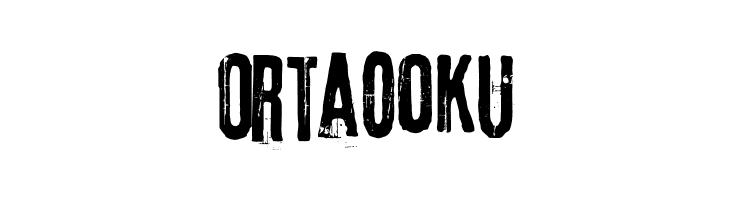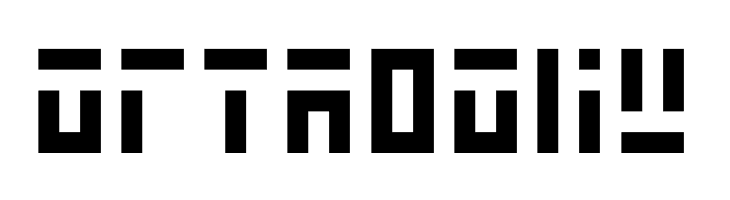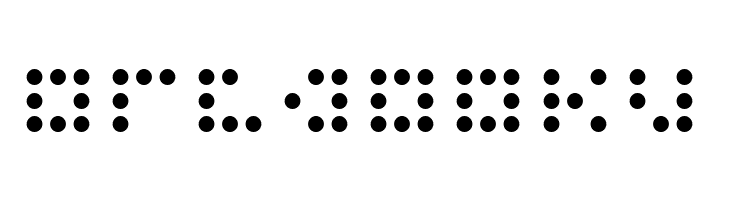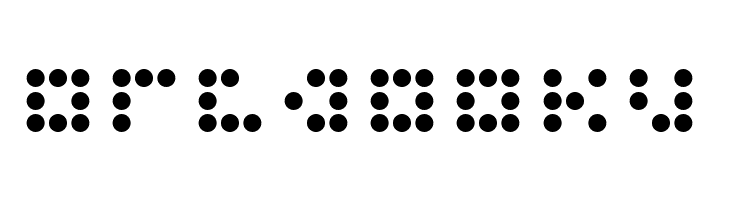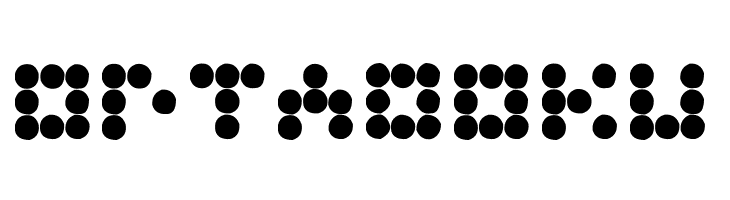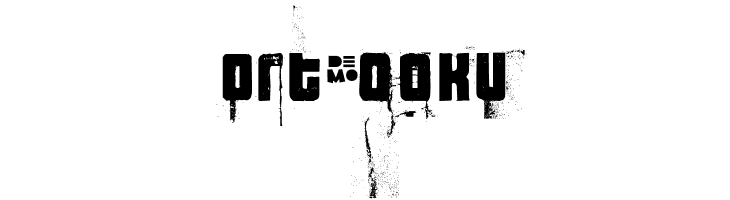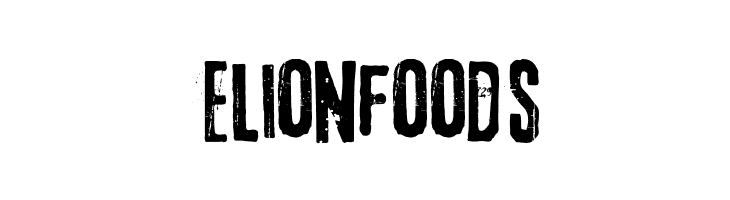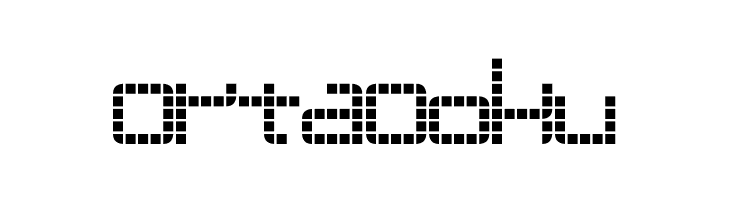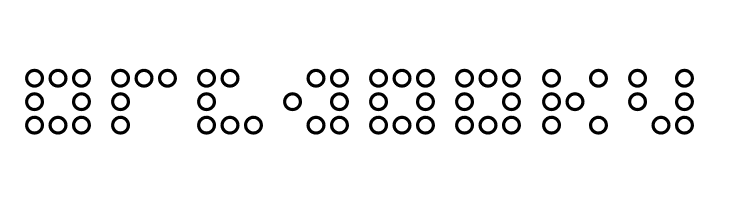
( Mubeen M - www.streamskystudios.com/ )
A bold, geometric font with sharp angles and dynamic cutouts.
( Fonts by Bumbayo Font Fabrik - bumbayo.blogspot.com )
A bold, distressed font with a vintage, industrial feel.
( Fonts by Bumbayo Font Fabrik - bumbayo.blogspot.com )
A bold, distressed font with a rugged, vintage appearance.
( Fonts by うろのる (uronoru) )
A geometric, blocky font with a futuristic, digital style.
A bold, geometric font with a futuristic, digital style.
( Fonts by www.fenotype.com )
A bold, distressed font with a gritty, urban aesthetic.
( SDFonts. http://www.angelfire.com/scifi2/sdfonts/index.html )
A dot matrix style font with a modern, digital appearance.